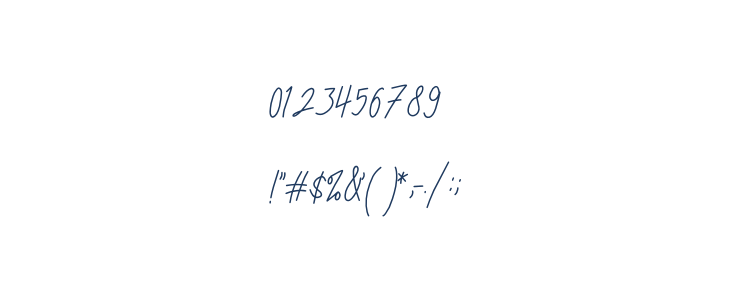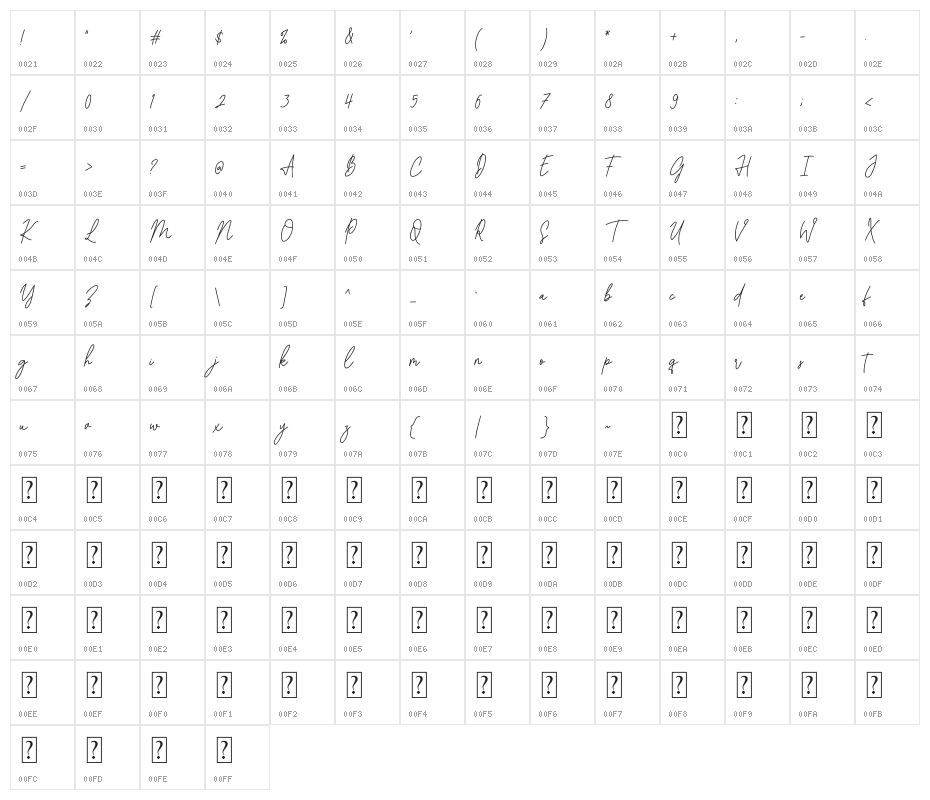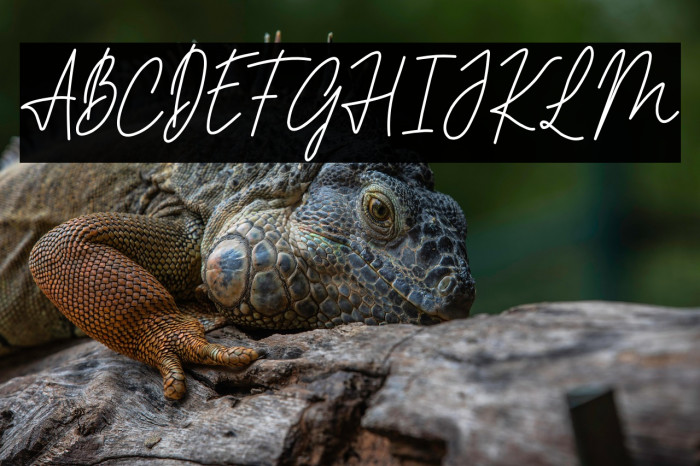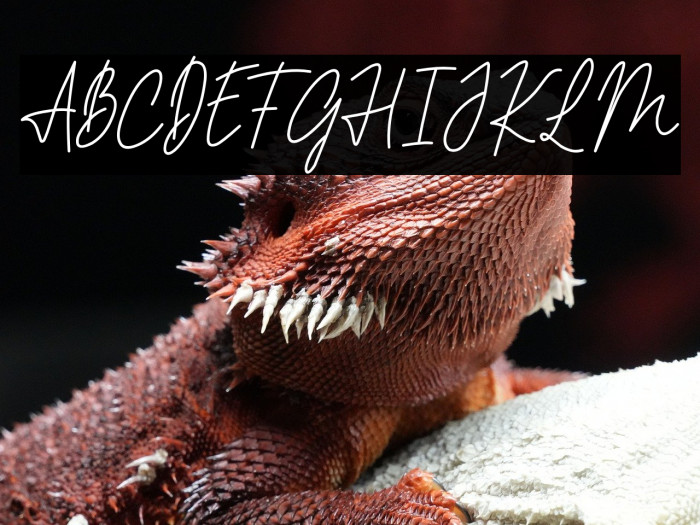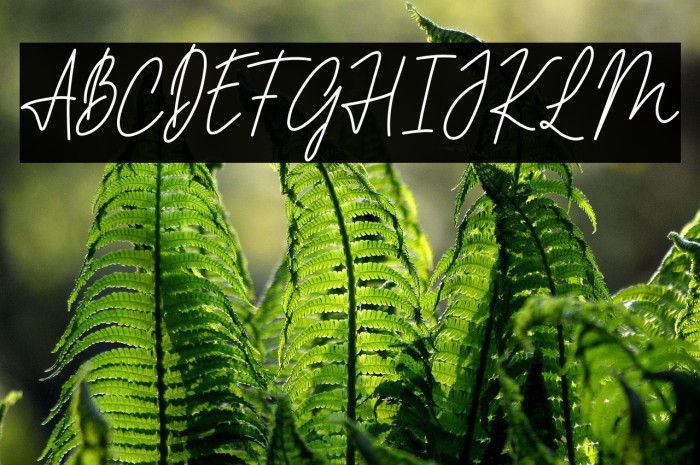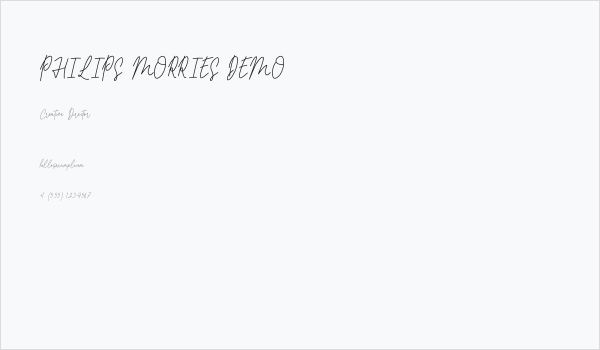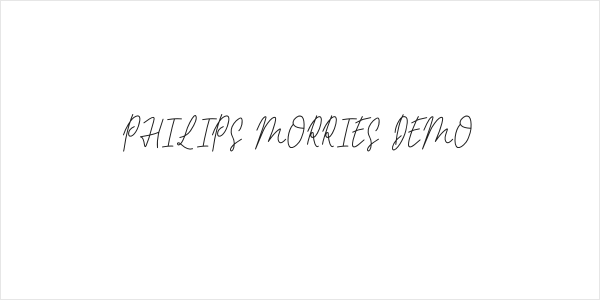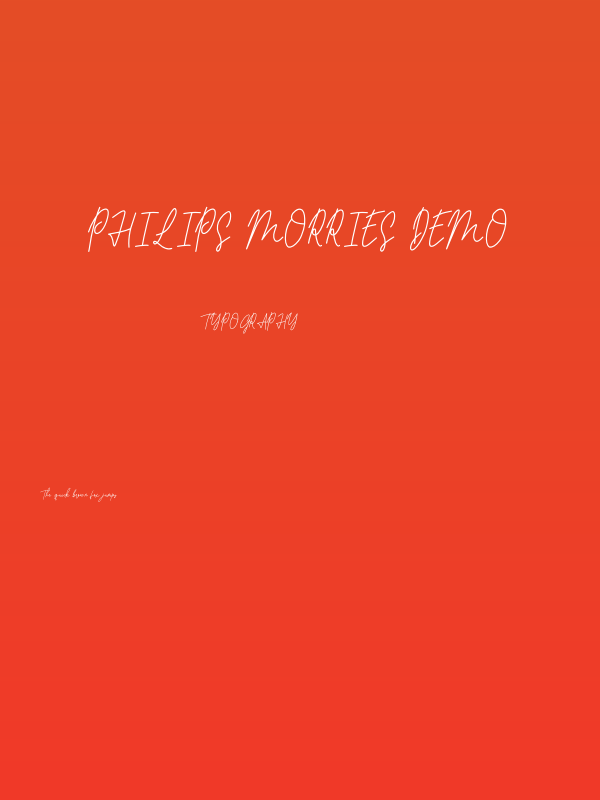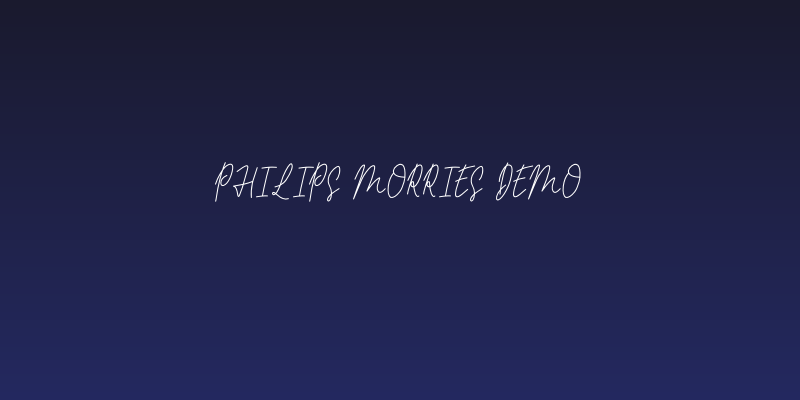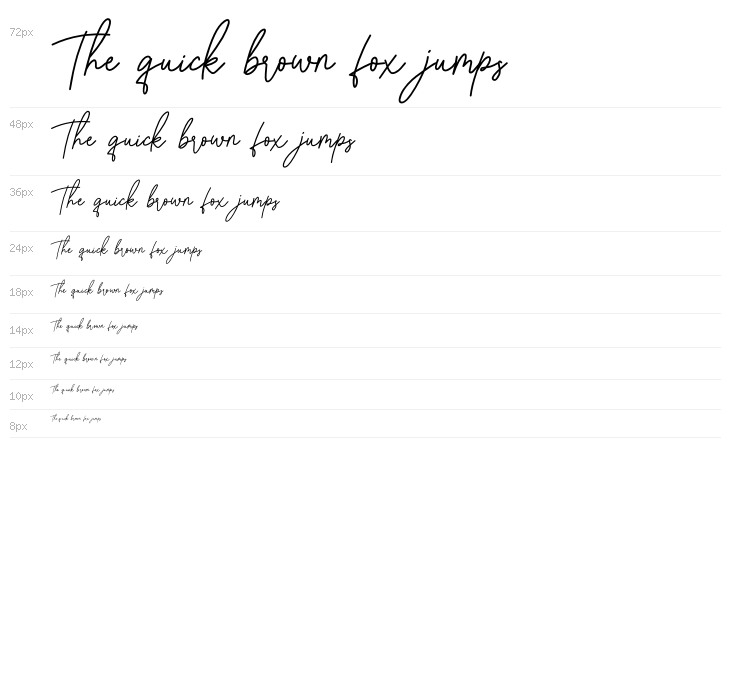
PHILIPS MORRIES DEMO Font
PHILIPS MORRIES DEMO Description
This elegant script font exudes a sense of sophistication and fluidity, characterized by its smooth, flowing lines and graceful curves. The uppercase letters are tall and slender, with a slight slant that adds a dynamic touch to the overall appearance. The lowercase letters maintain a consistent style, with loops and swirls that enhance the font's handwritten feel. The numerals are well-proportioned, matching the style of the alphabet, and the special characters are seamlessly integrated, maintaining the font's cohesive look. This font is ideal for projects that require a personal, artistic touch, such as invitations, greeting cards, or branding materials.
| Overall Style | Elegant, Artistic |
| Proposed Projects | Ideal for wedding invitations, personal branding, greeting cards, and artistic projects. |